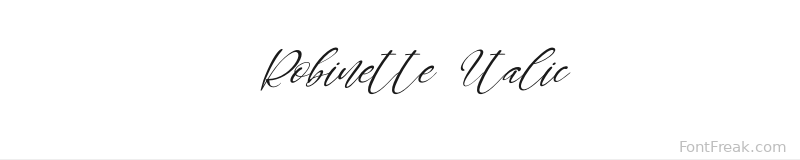
Robinette
Robinette Italic
Robinette, crafted by Kong Font in 2020, is a stunning handwritten typeface that encapsulates a blend of elegance and playfulness. This font is characterized by its light stroke weight and moderate contrast, which lend it a graceful appearance while maintaining legibility. The flowing, cursive style is complemented by subtle decorative elements, making it ideal for projects that require a touch of personality. The spacing is thoughtfully designed to enhance readability, ensuring that each letter flows seamlessly into the next.
This versatile typeface shines in various applications. It is perfect for wedding invitations, where its romantic flair can set the mood for special celebrations. Additionally, Robinette works beautifully for personalized greeting cards, capturing heartfelt sentiments with charm. For small business owners, using this font in branding materials such as menus or promotional flyers can help establish a unique identity that resonates with customers. Content creators can also utilize Robinette in social media graphics, adding an artistic touch to their visual storytelling.
Targeting graphic designers and small business owners, Robinette appeals to anyone seeking a font that combines style with functionality. Its ability to adapt to different contexts while maintaining a cohesive aesthetic makes it a valuable addition to any designer’s toolkit.
What sets the Robinette font apart is its distinctive character and versatility. It effortlessly combines elegance with a casual, inviting vibe, making it suitable for both formal and informal uses. The Robinette font free download offers an opportunity for creatives to enhance their projects without cost, ensuring that high-quality design is accessible to all. Choose Robinette for your next project, and let its unique charm elevate your designs.